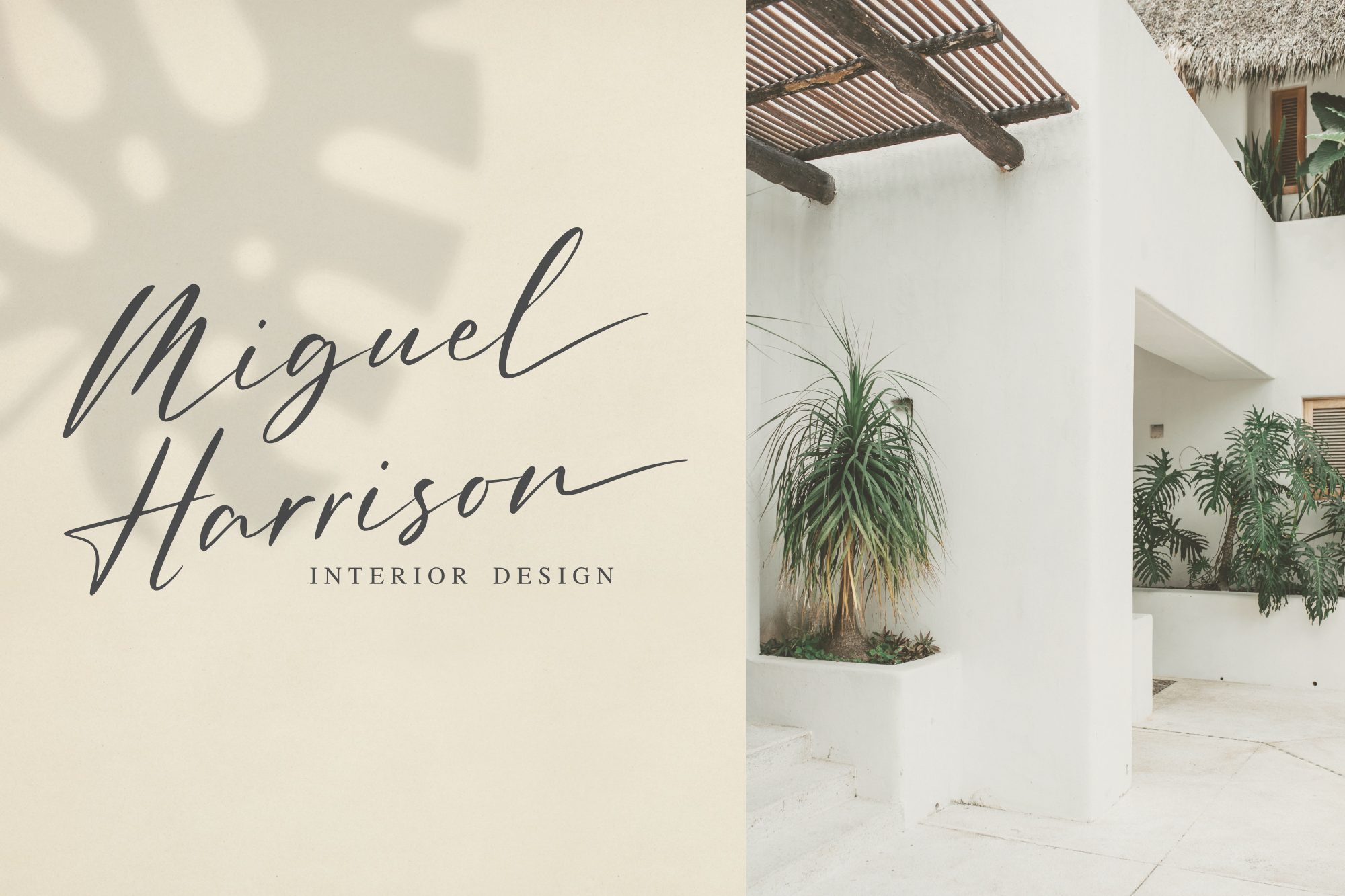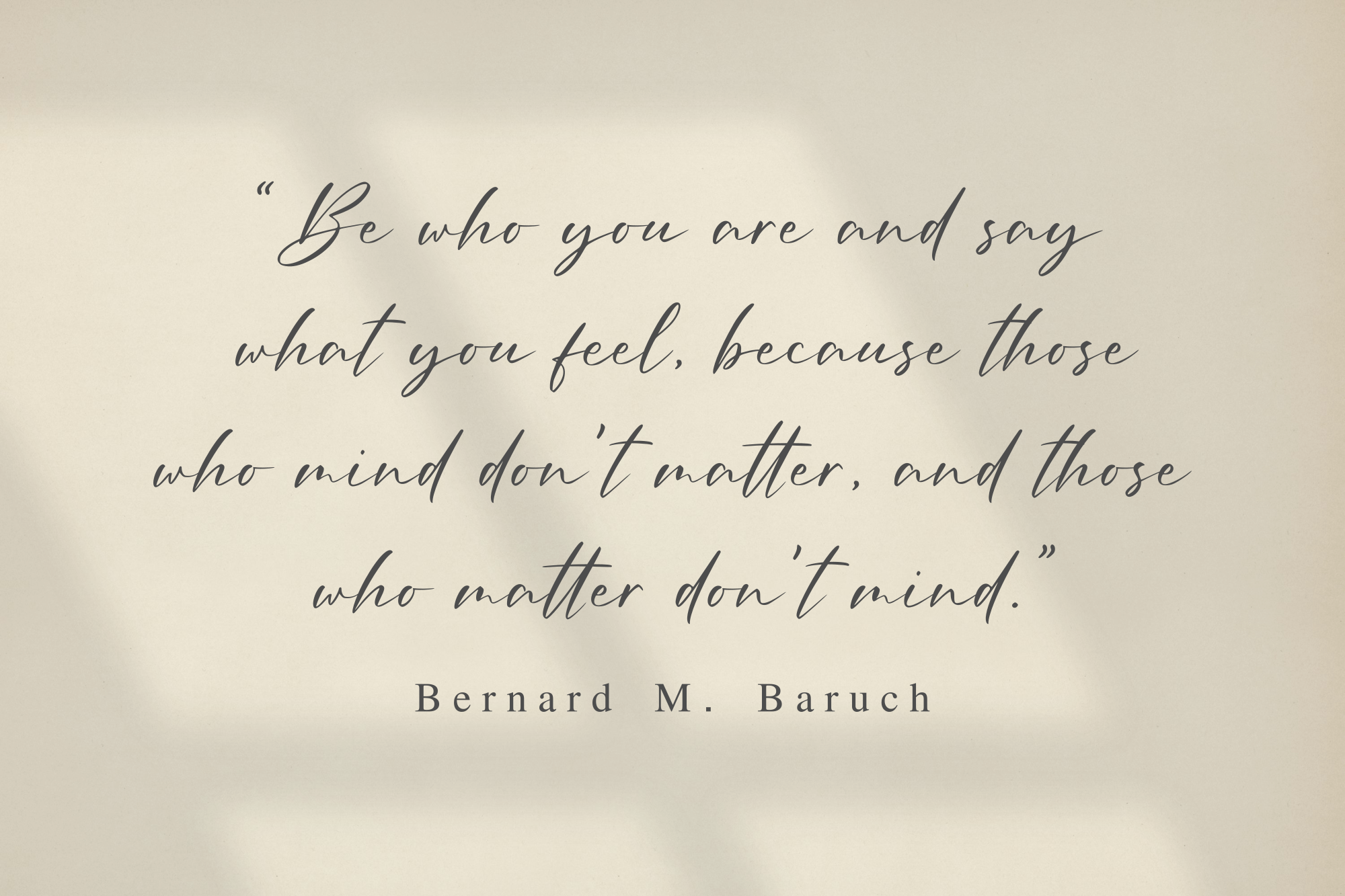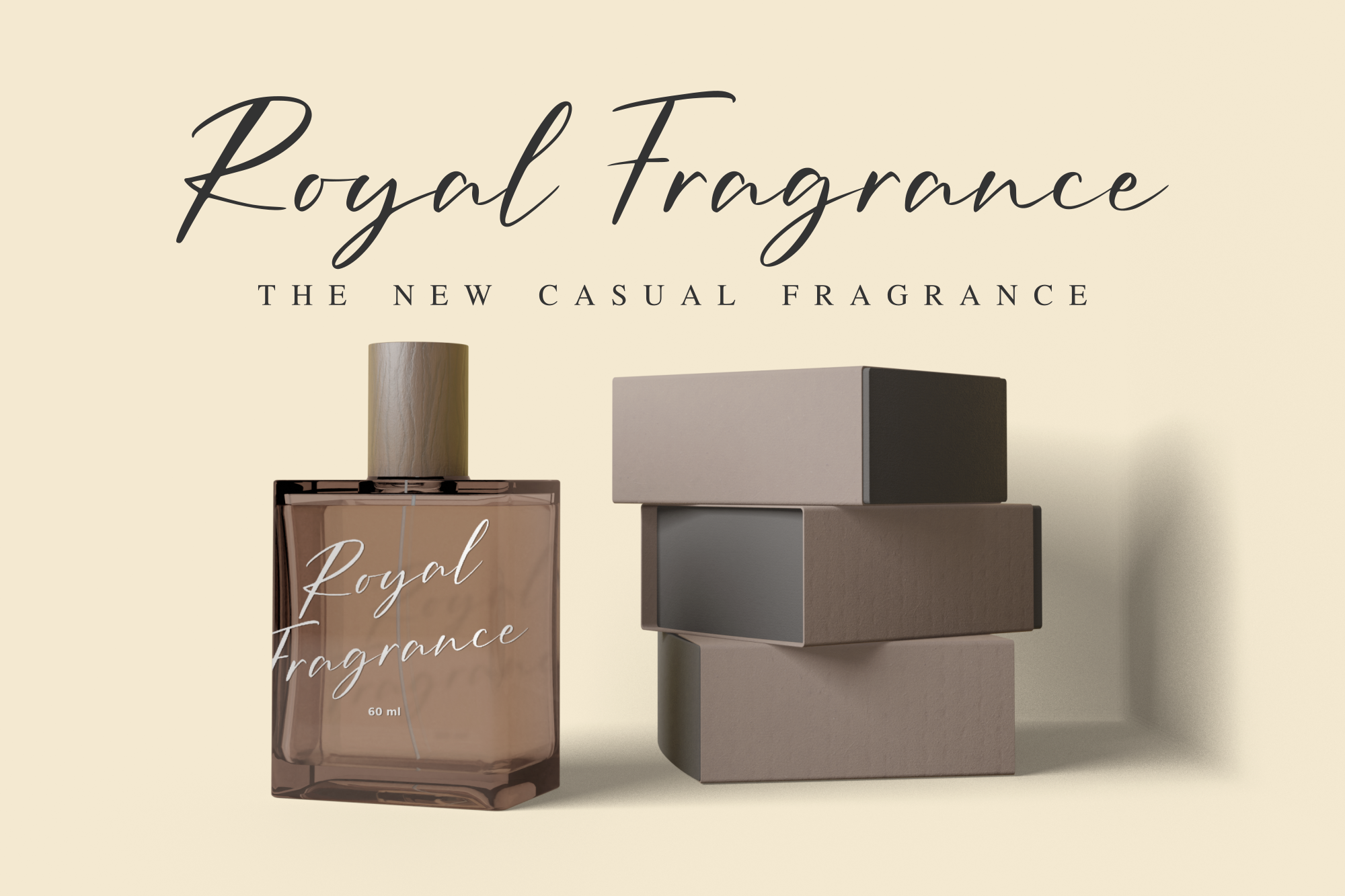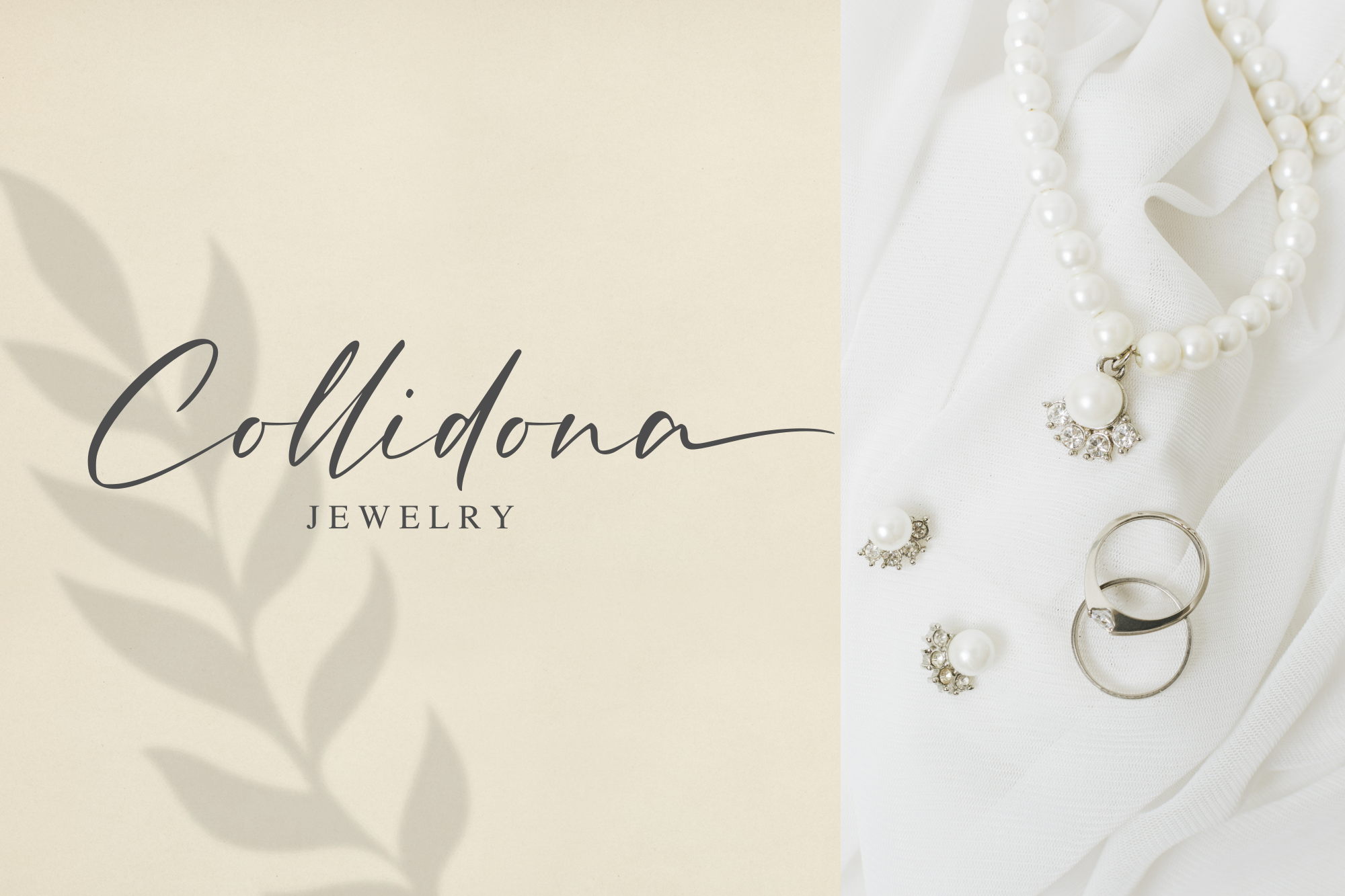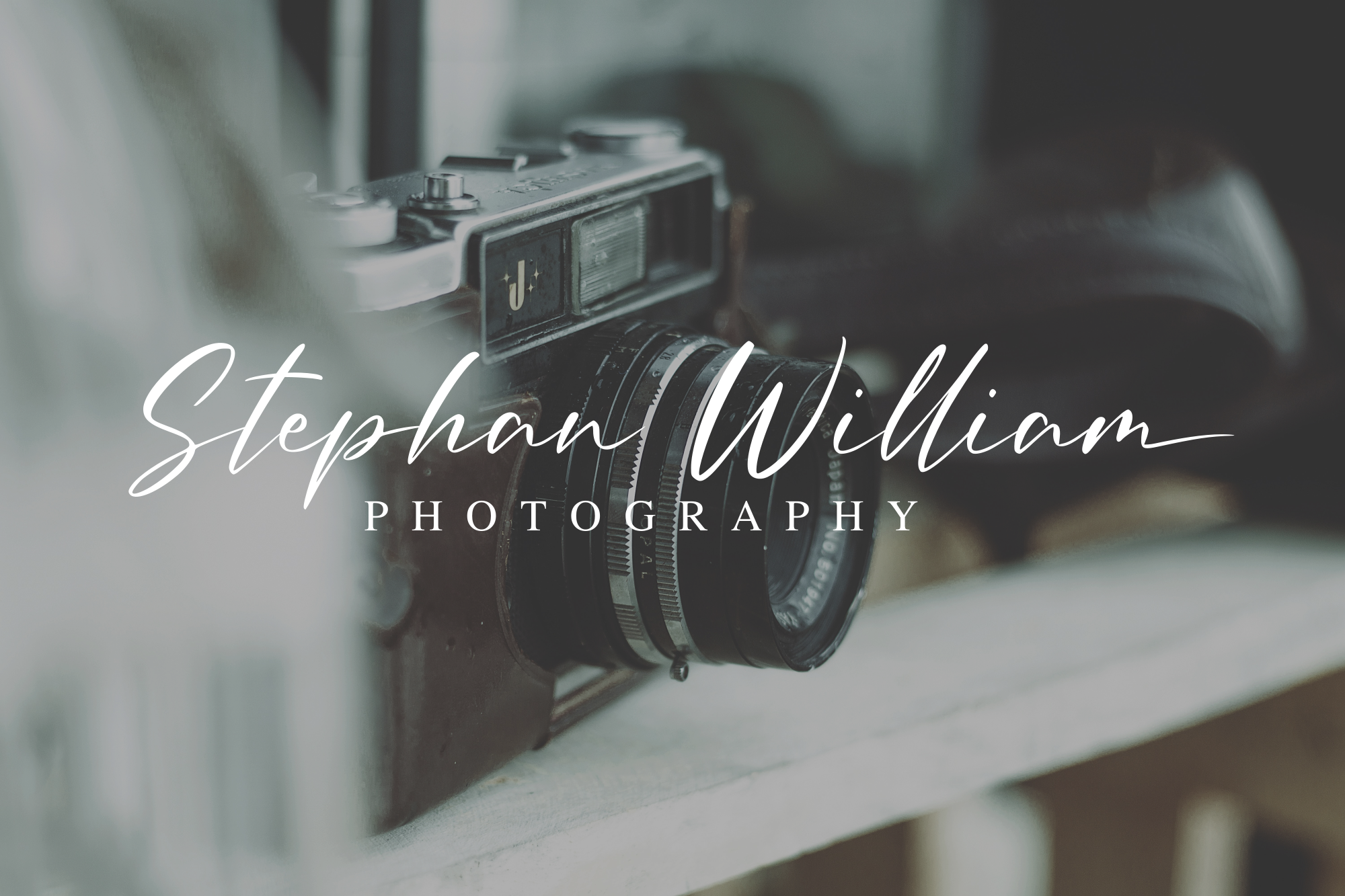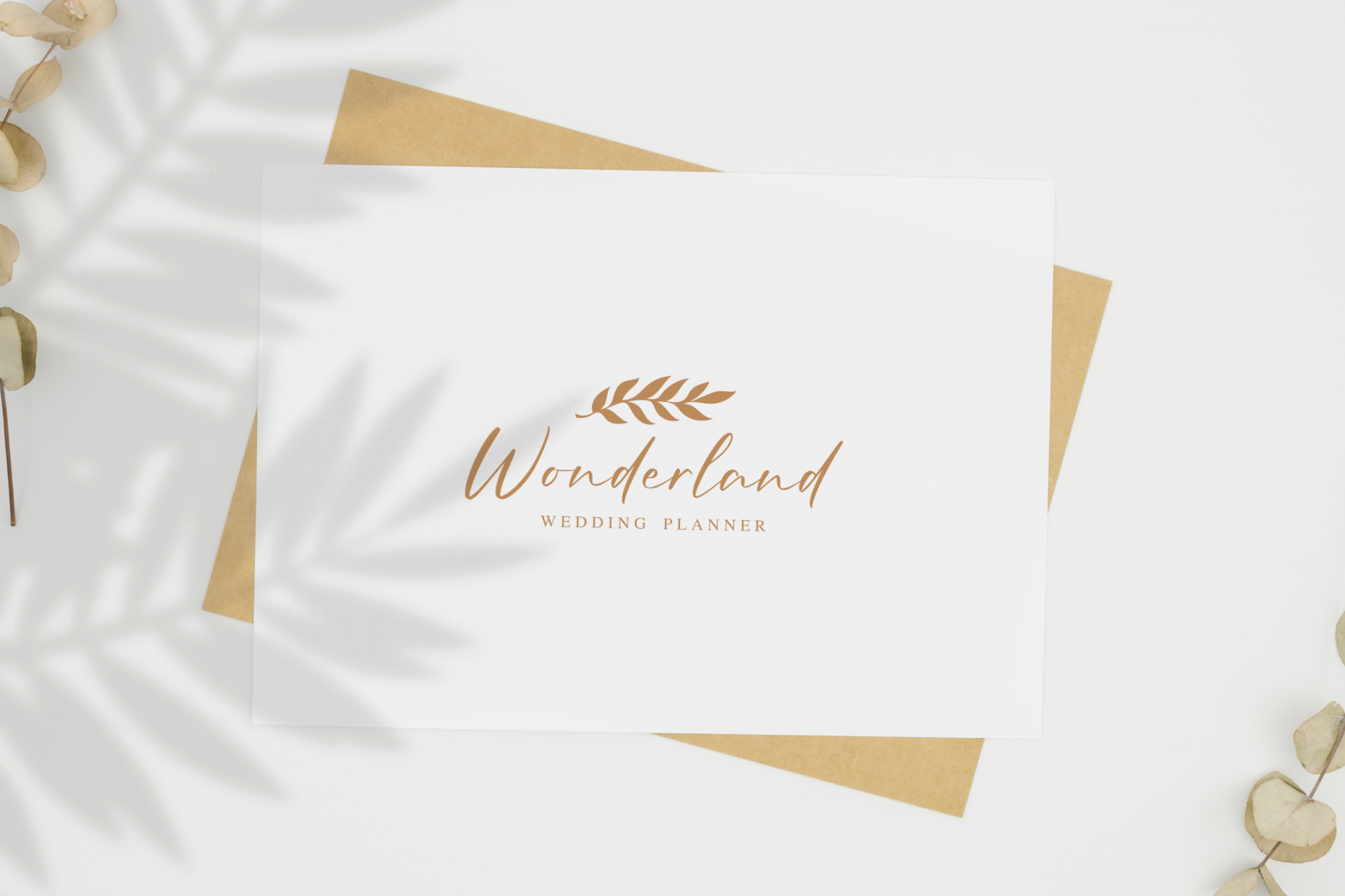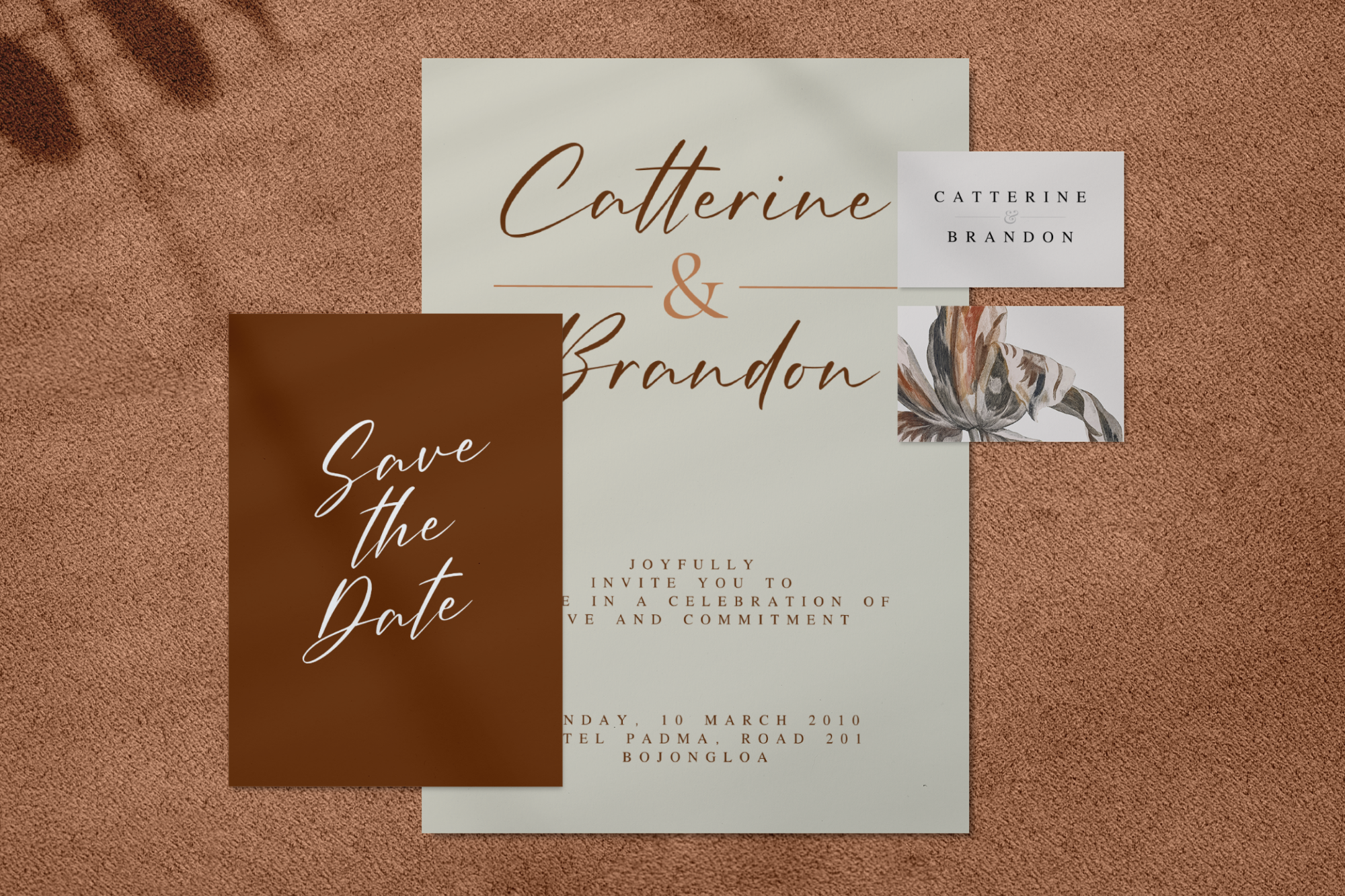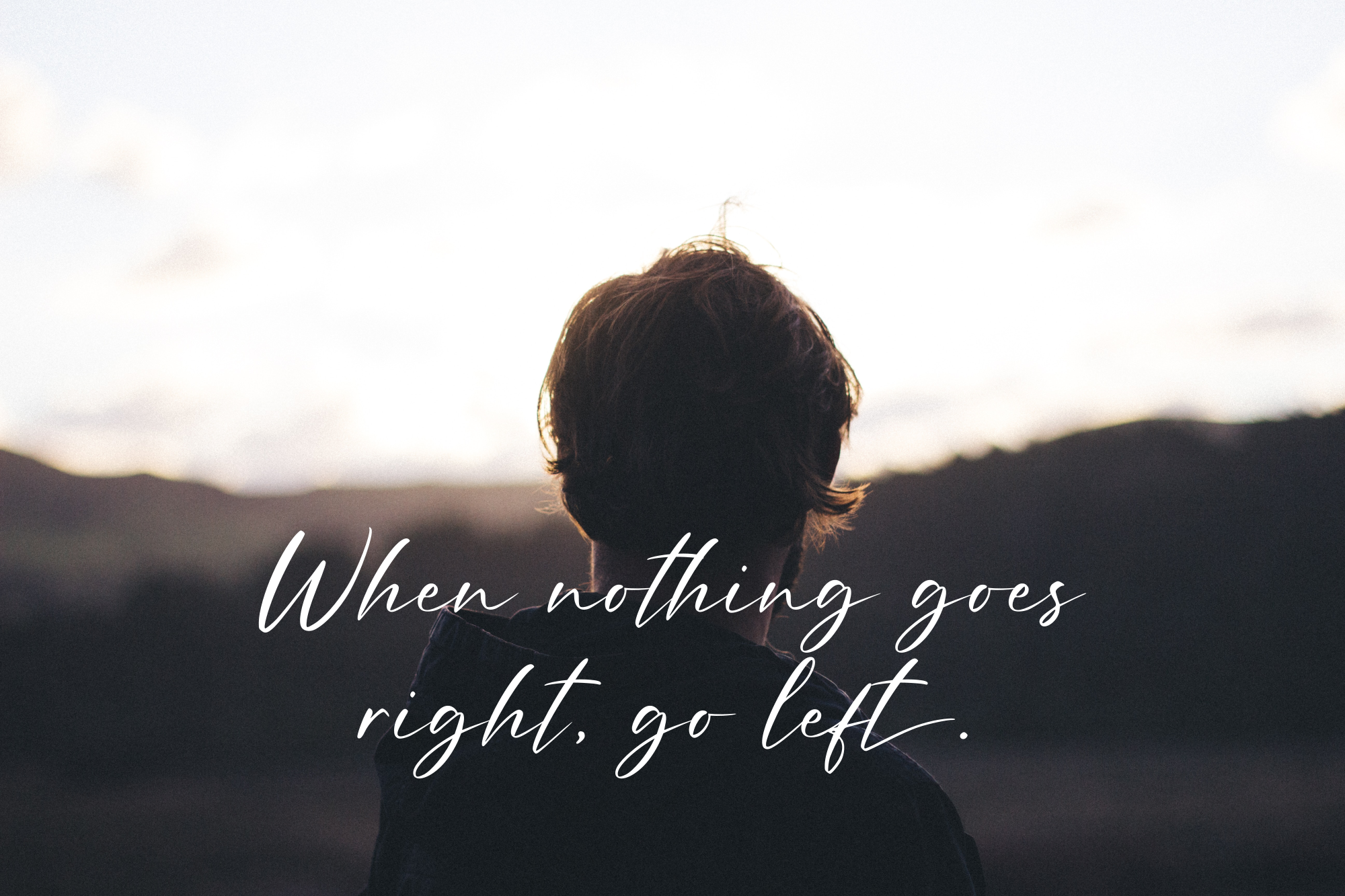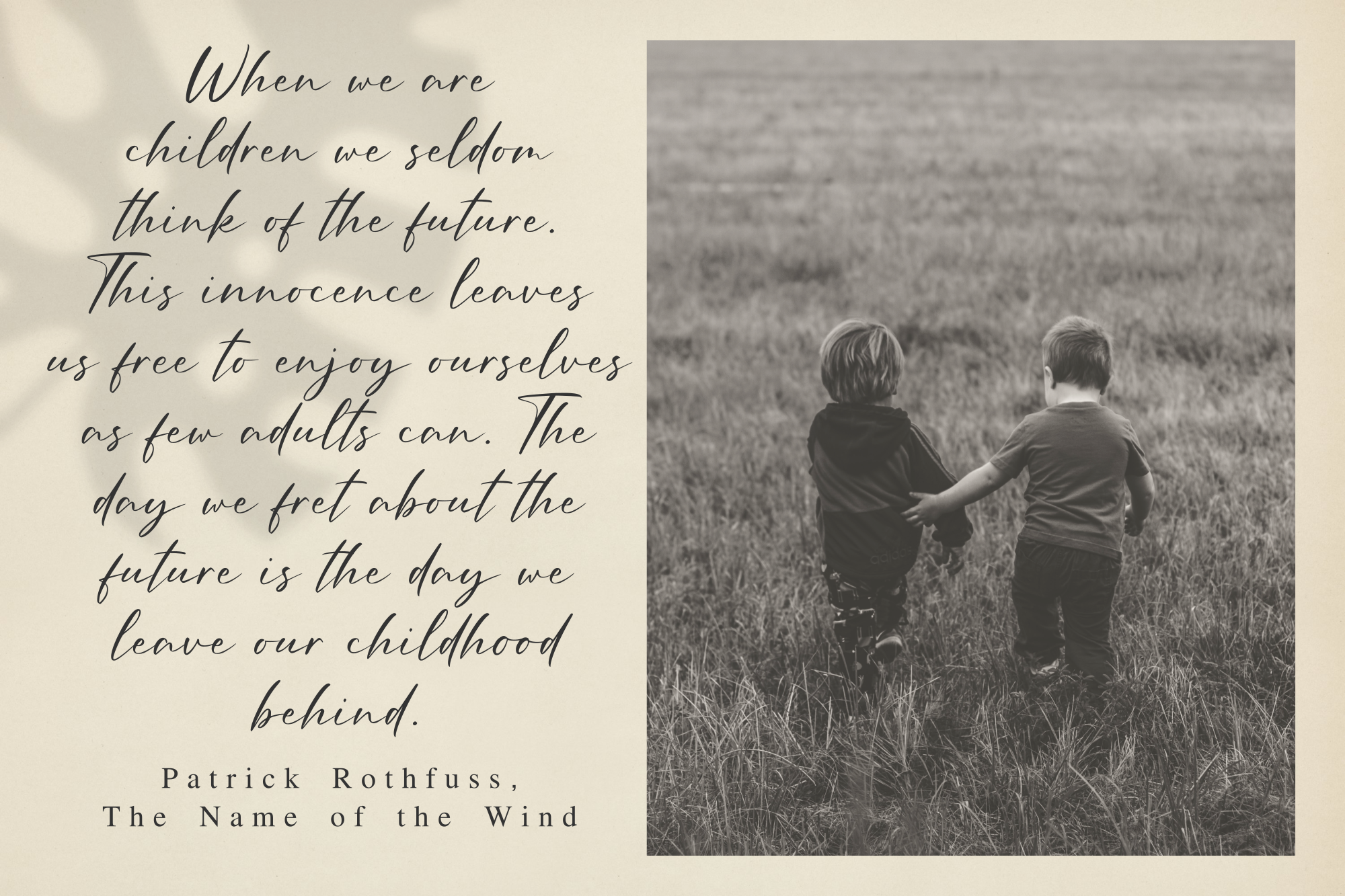
Amellian Gressida - Signature Font
Amellian Gressida is a modern signature typeface with beautifully crafted letters. It brings an elegant and personal feel that can lift any design concept.
Amellian Gressida is a modern signature typeface with beautifully crafted letters. It brings an elegant and personal feel that can lift any design concept. Use it for signature logos, branding, business cards, invitations, packaging, social media graphics, and more.
Signature logos, branding, business cards, invitations, packaging, social media graphics,